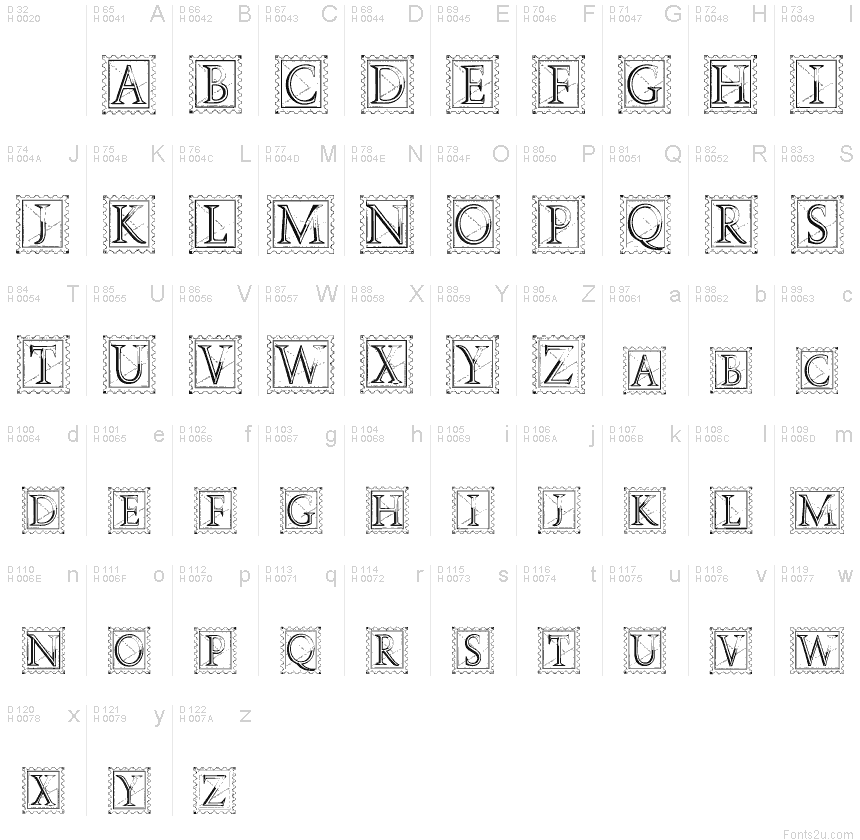
Deco Stamp
Deco Stamp font by Melle DERIEPPE Claude is a free decorative display typeface that turns every letter into its own tiny postage stamp. Each character sits in a crisp, perforated frame, with slender, slightly formal letterforms and fine inky outlines that feel like they’ve been hand-cancelled at a bustling old post office. The repeating boxes create a built‑in grid, so words line up like a strip of collected stamps across your layout.
Using Deco Stamp, you instantly get a mail‑themed headline without needing extra graphics. This free font works beautifully for postcards, travel posters, handmade stationery, pen-pal club branding, packaging for paper goods, and event invitations with a vintage postal twist. For body text, pair Deco Stamp with a simple sans serif set small, letting the stamp letters stay large and airy as the hero.